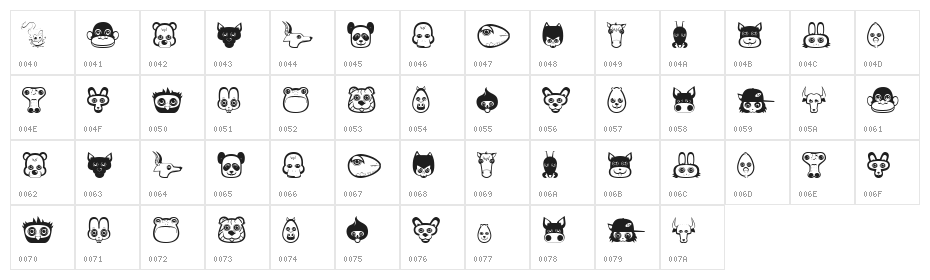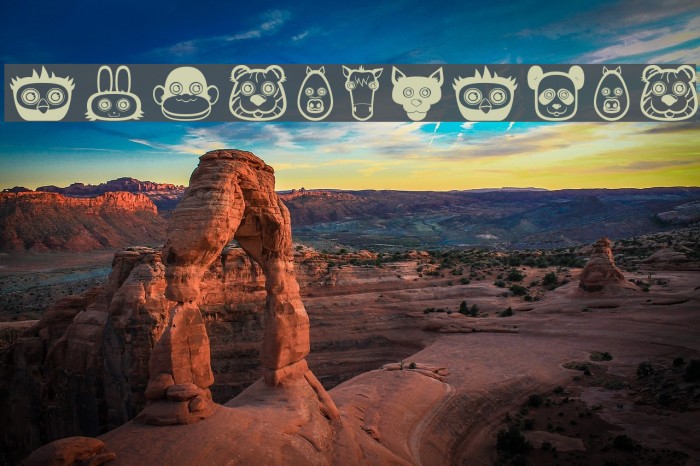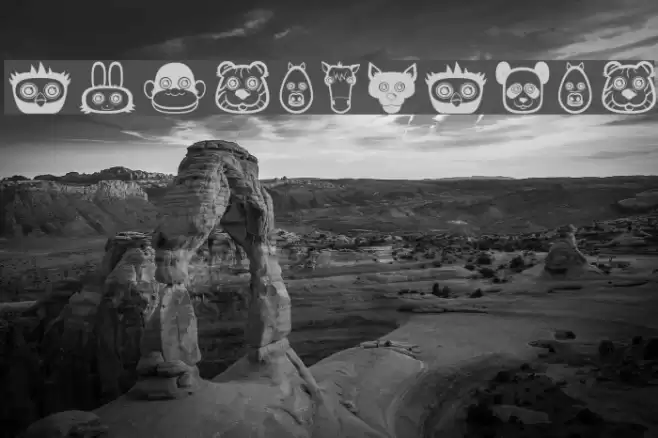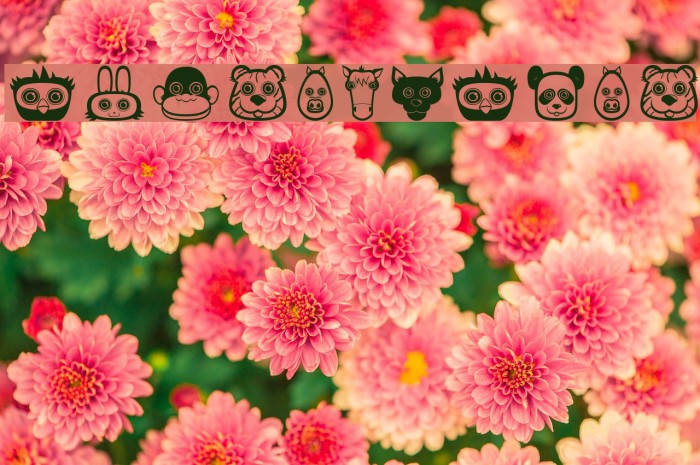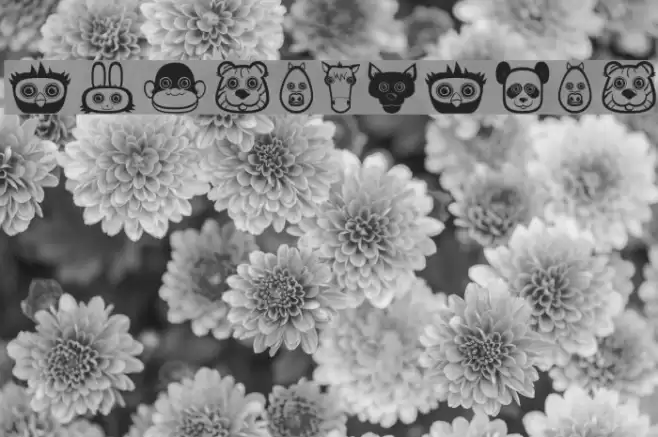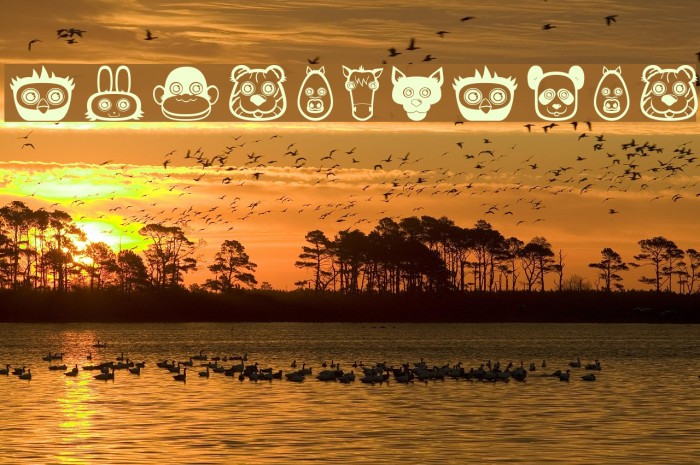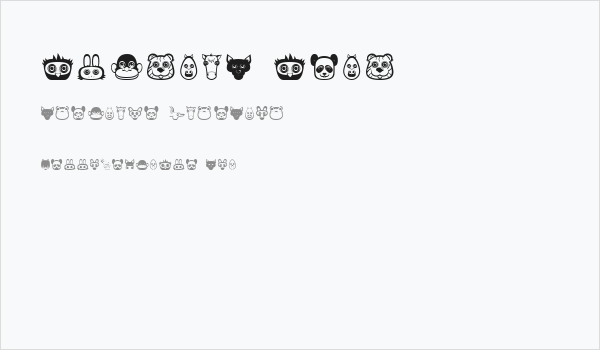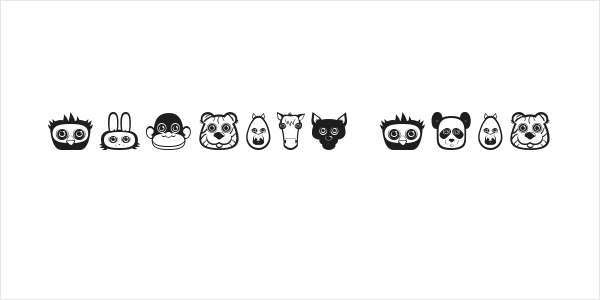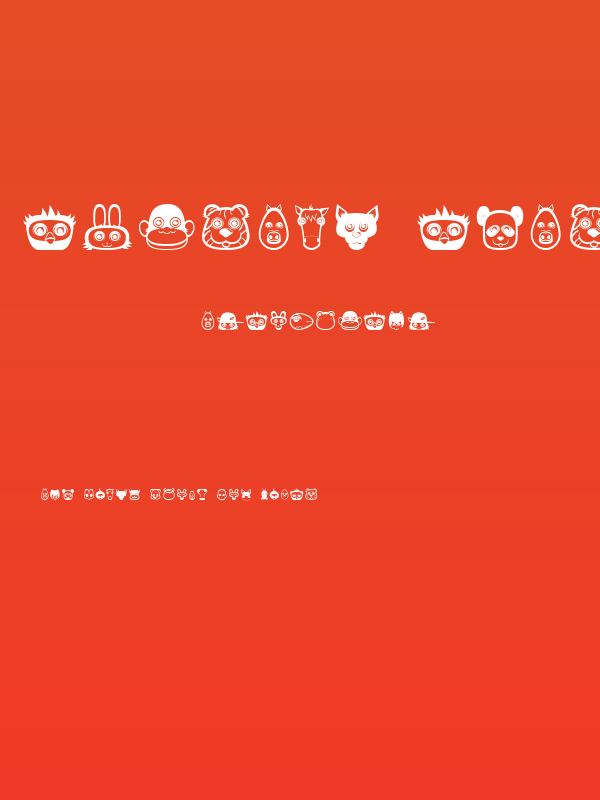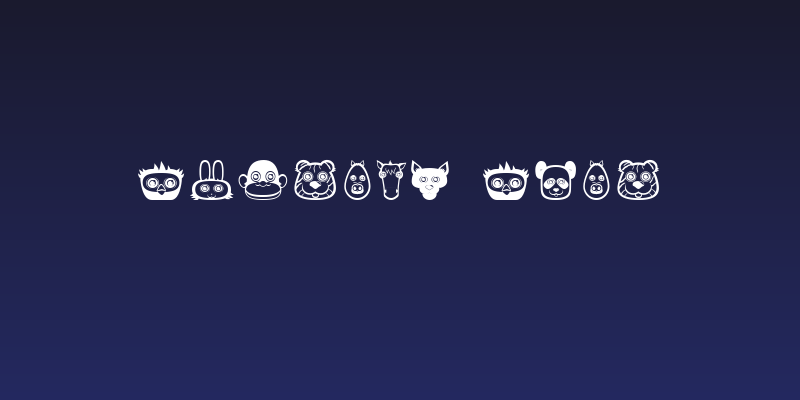
plastic pets Font
A playful and whimsical decorative font composed entirely of stylized animal faces, each character representing a different cartoon-like animal with bold outlines and expressive features.
| Overall Style | Playful, Whimsical, Decorative |
| Use Case | Logos, Posters, ChildrenΓ’β¬β’s content, Decorative headings |
| Proposed Projects | ChildrenΓ’β¬β’s books, educational materials, party invitations, playful branding, stickers, and digital games. |